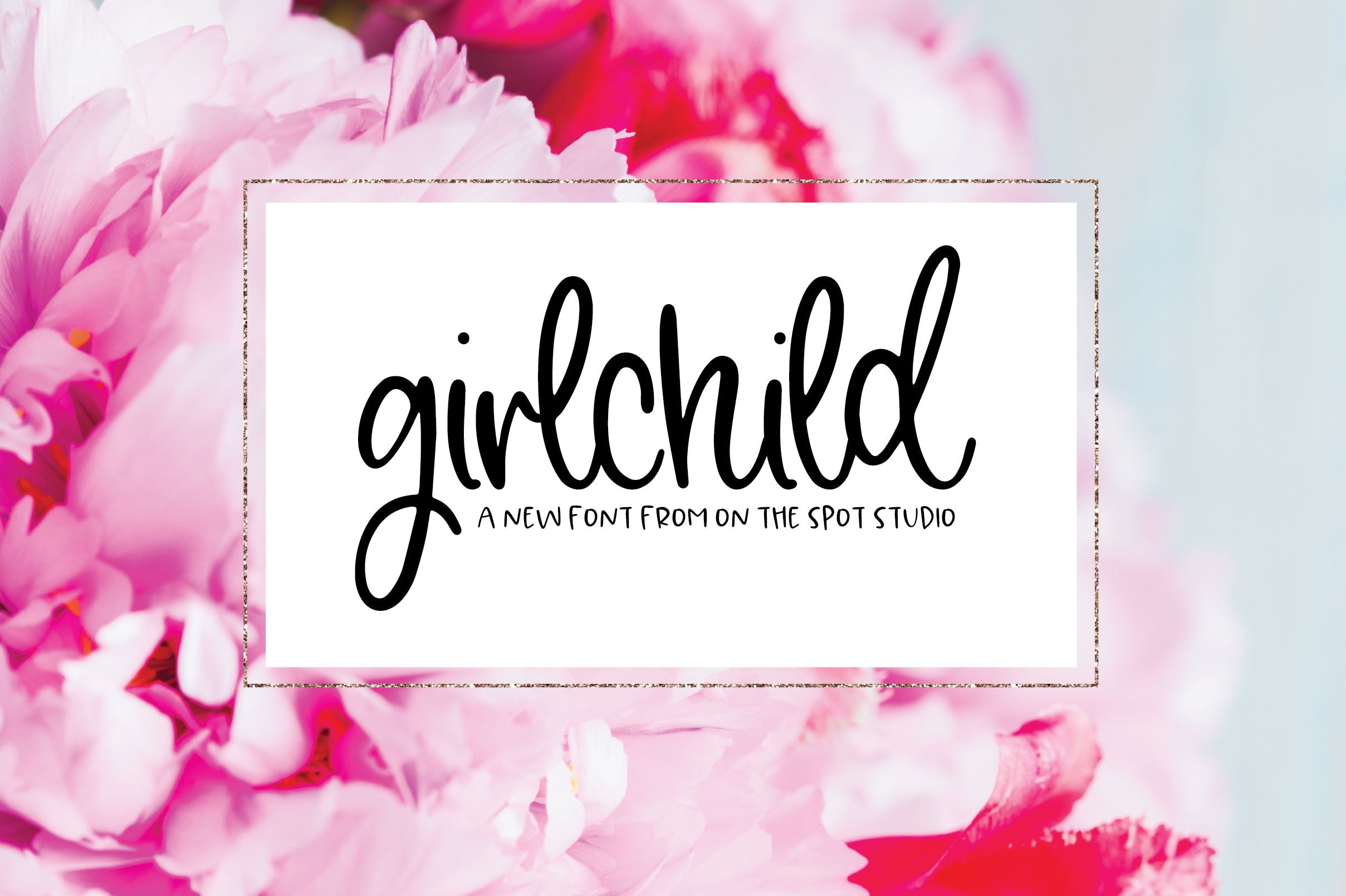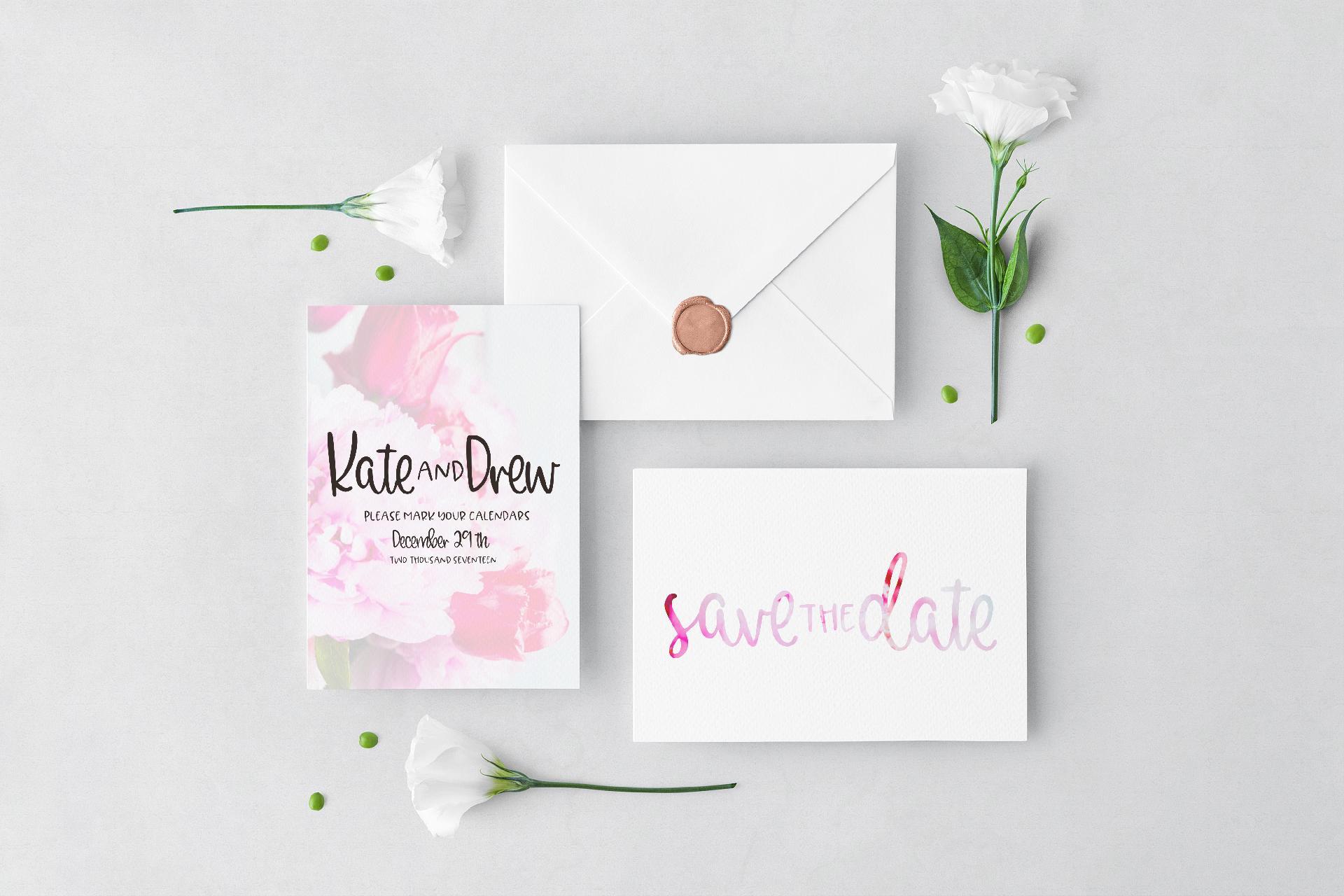
HomeScript FontsGirlchild Script Fonts Girlchild FacebookXPinterestWhatsApp 1 of 3 ... ... ... About Girlchild GirlChild is a sweet and simple script font perfect for logos, shirts, crafting & more! DOWNLOAD NOW People also explored Dragon Heroes Font Carbon Font Happy Star Font Skutter Font Ludhovicf Medium Font Belgium Catherine Font Khalani Artemis Font Dunheall Font Hooley Font 200 0 TagsGirlchild Previous articleChocolate MilkNext articleBrekkie LEAVE A REPLY Cancel reply Comment: Please enter your comment! Name:* Please enter your name here Email:* You have entered an incorrect email address! Please enter your email address here Website: Save my name, email, and website in this browser for the next time I comment. Personal Use Free Hiters Personal Use Free Read more about this font Unsteady Overseer Personal Use Free Read more about this font Stentiga Personal Use Free Read more about this font Mounets Personal Use Free Read more about this font BLOG Top 7 Google Fonts Alternatives for Faster and Privacy-Friendly Web Design (2025) Top 7 Google Fonts Alternatives for Faster and Privacy-Friendly Web Design (2025) When it comes to web typography, Google Fonts has long been the go-to... Best Fonts for YouTube Videos: Make Your Thumbnails Stand Out Elegant Wedding Invitation Fonts – Handwritten & Script Fonts How to Install and Use Fonts on Windows, macOS, and Web Projects